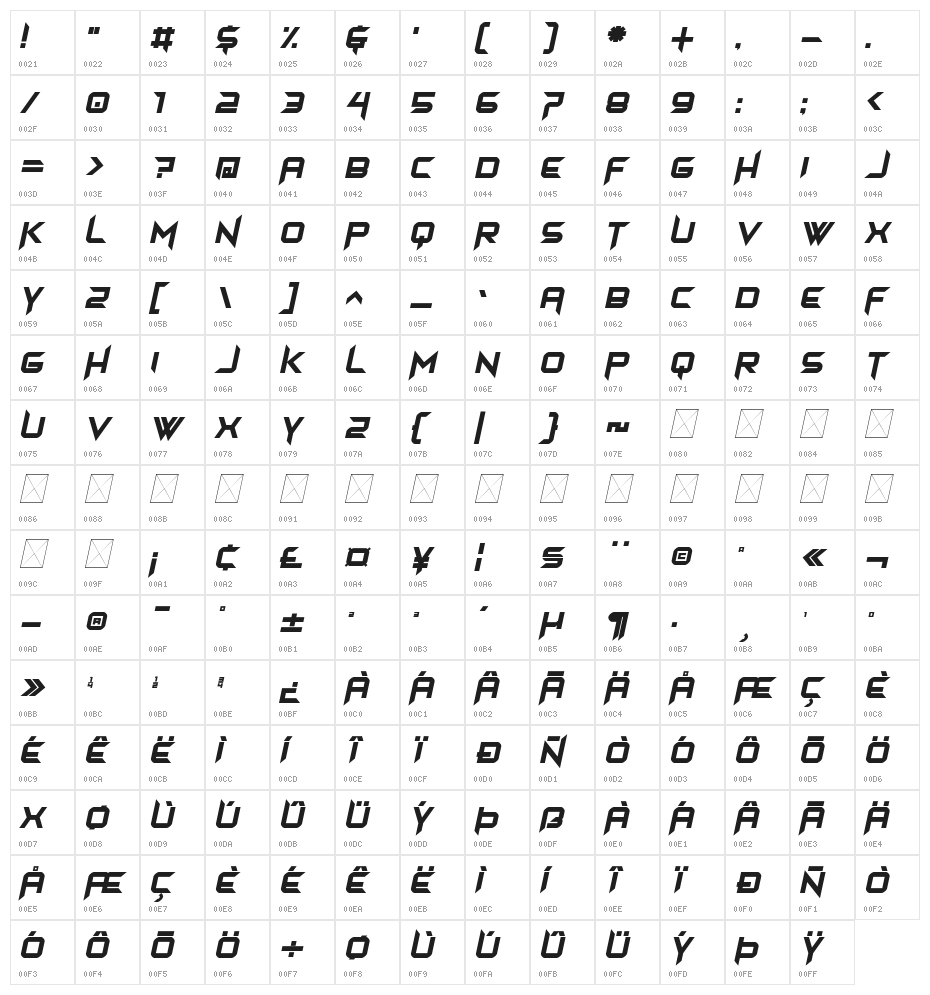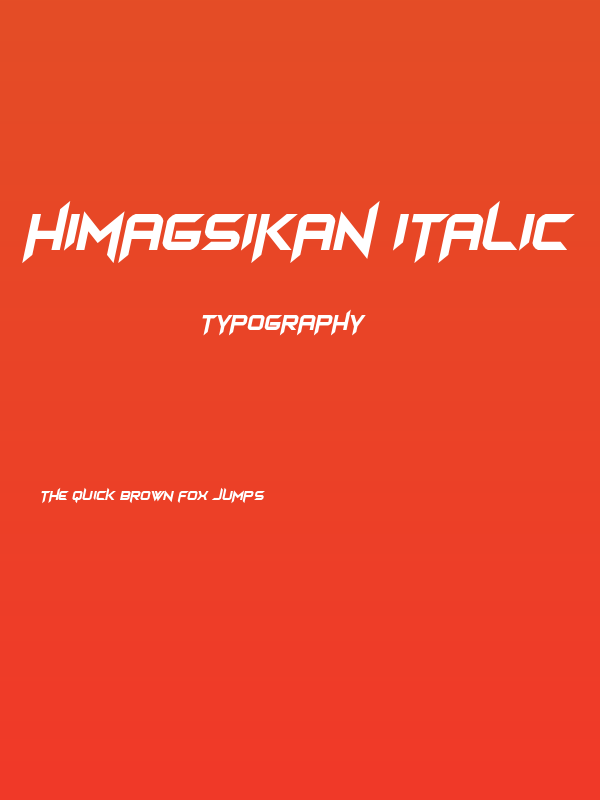
Himagsikan Italic Font
Himagsikan Italic Description
This font features a bold, angular design with a futuristic and dynamic appearance. The characters are sharply cut with distinct edges, giving them a sense of motion and energy. The italic style enhances this effect, making it suitable for projects that require a modern and edgy look. The uppercase and lowercase letters maintain a consistent style, with numbers and special characters following the same angular theme. The overall design is cohesive and visually striking, making it ideal for attention-grabbing headlines or logos.
| Proposed Projects | Ideal for sci-fi themed designs, gaming logos, sports branding, and dynamic posters. |